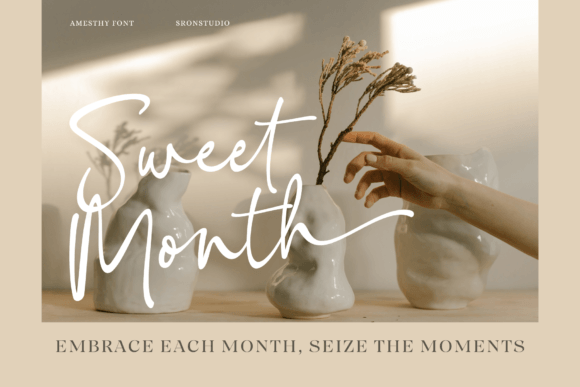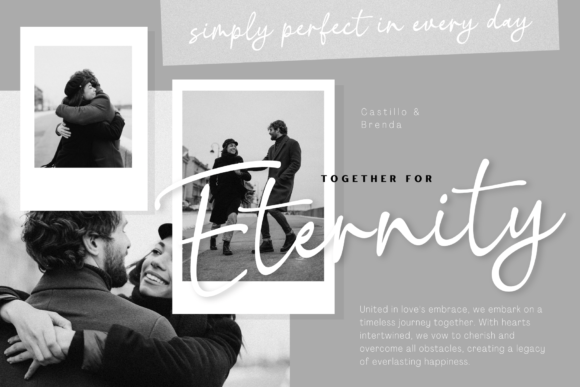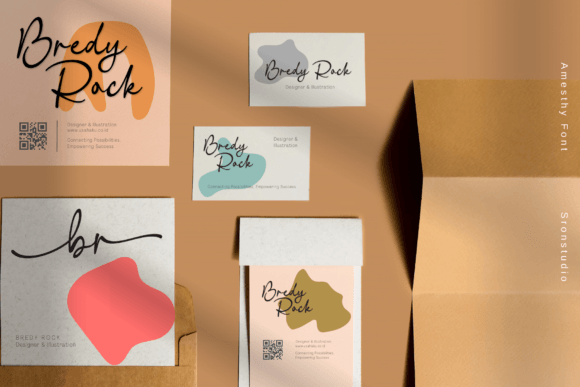
Amesthy Font
“Amesthy” is a sophisticated signature-style font that adds elegance and personal touch to your designs. With flowing lines and stylish flourishes, it exudes refinement and luxury. Perfect for logos, invitations, and personal branding. Embrace the beauty of a handwritten signature with “Amesthy” and make a lasting impression.This font is PUA encoded which means you can access all of the amazing glyphs and ligatures with ease!